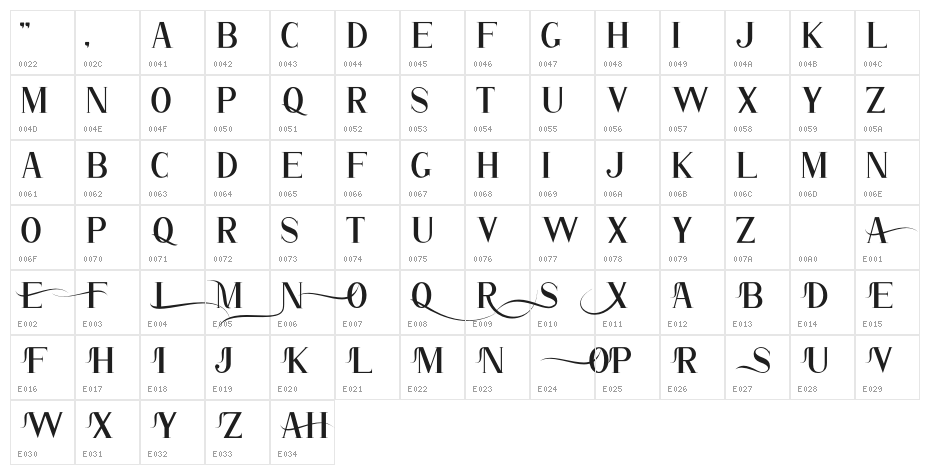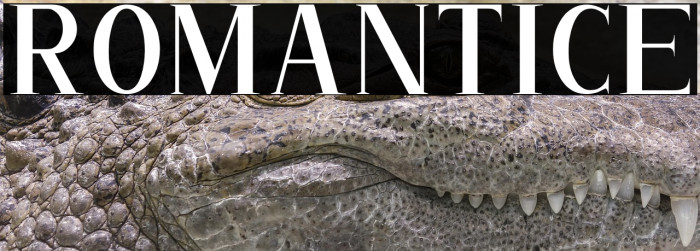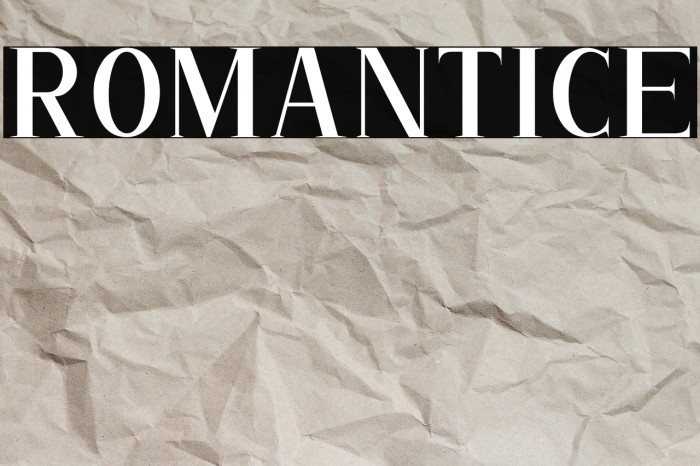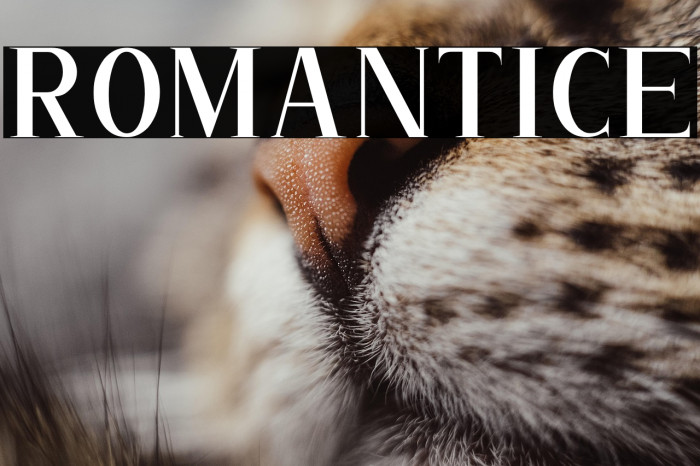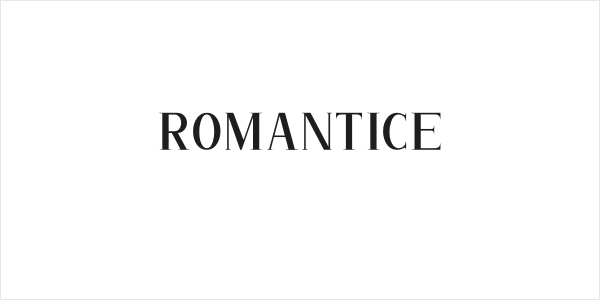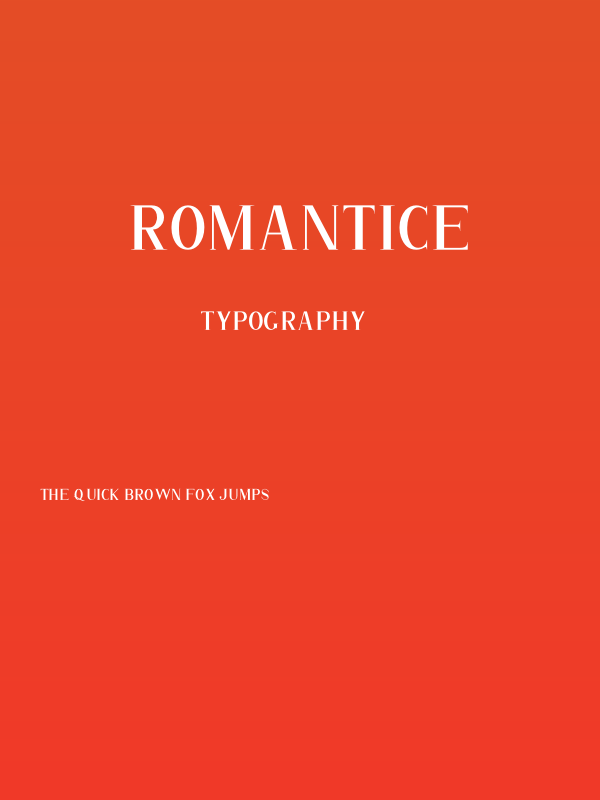
ROMANTICE Font
ROMANTICE Description
This font features a classic serif style with elegant, sweeping curves and a sophisticated appearance. The uppercase letters are bold and commanding, while the lowercase letters maintain a refined and balanced look. The serifs are pronounced, adding a touch of tradition and formality. The overall design is reminiscent of timeless typography, making it suitable for projects that require a touch of elegance and class. The font's high contrast between thick and thin strokes enhances its readability and visual appeal, making it a great choice for both print and digital media.
| Proposed Projects | Ideal for wedding invitations, luxury branding, editorial design, and formal event programs. |